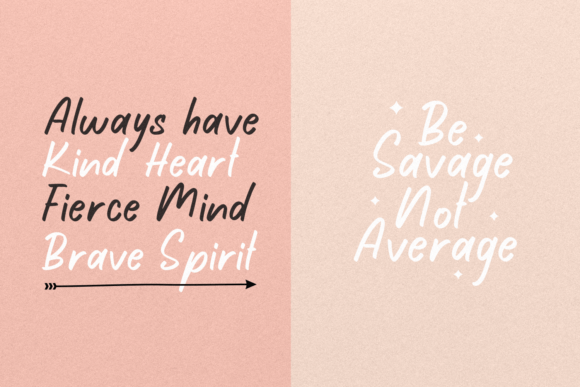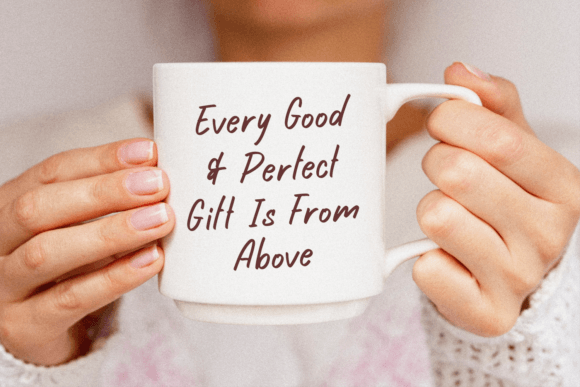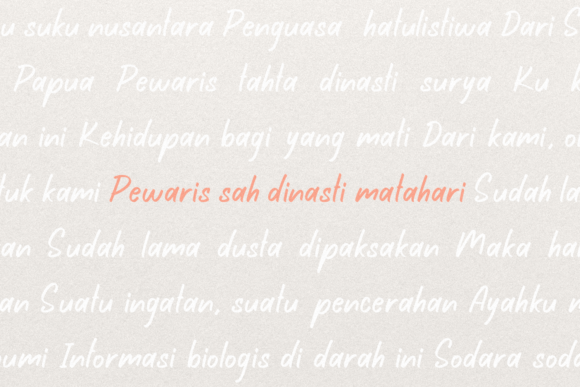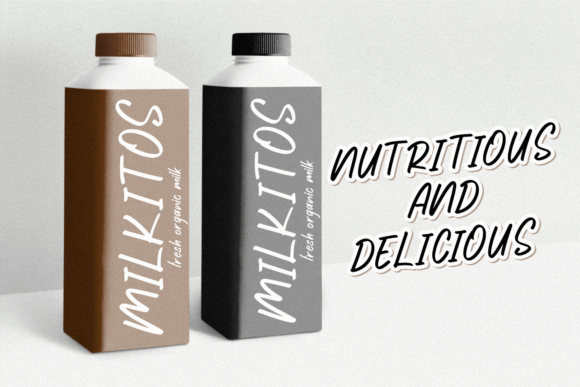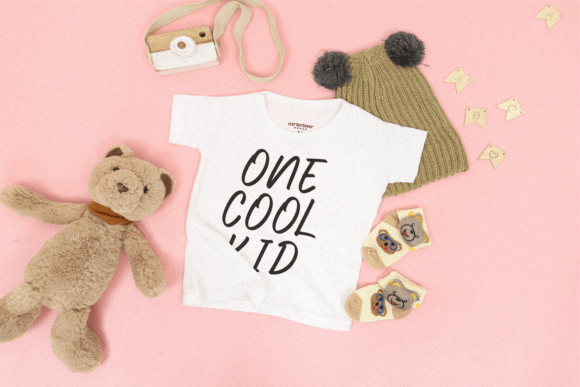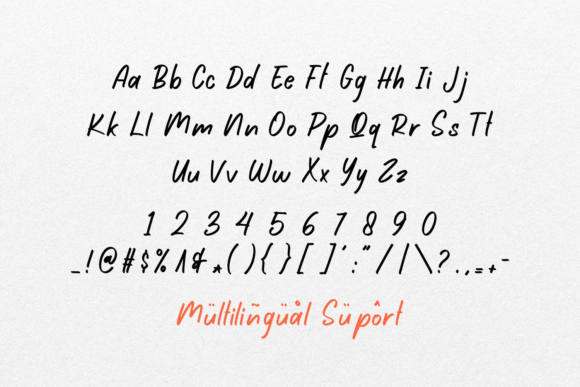
Introduction to Saltcity Font
Do you remember the moment when you first saw a handwritten note from a loved one? The feeling of warmth and thoughtfulness that came with it? That’s exactly what the Saltcity Font aims to evoke in your creative projects. This elegant and charming script font is perfect for adding a personal touch to your designs.
Whether you’re a professional designer or a hobbyist, the Saltcity Font is a valuable resource to have in your toolkit. Its versatility makes it suitable for a wide range of applications, from wedding invitations to business cards, and its free download feature makes it accessible to everyone. With its transparent background and high-quality design, you can rest assured that your creative project will stand out from the crowd.
Key Features of Saltcity Font
- Includes a range of font sizes and styles, from bold to light, to accommodate different design needs.
Honest Review: Saltcity Font
I recently stumbled upon the Saltcity Font and was excited to dive in and see what it had to offer. As a designer, I’m always on the lookout for high-quality design resources to enhance my creative projects.
- ✨ The font’s modern aesthetic makes it perfect for contemporary design projects.
- ⚠️ The font may not be suitable for traditional or formal design projects, as its modern feel may not be the best fit.
- ⚠️ Some users may find the font’s weight to be inconsistent, which could impact readability.
Overall, I was impressed with the Saltcity Font’s design and functionality. While it may have some limitations, it’s a great option for designers looking for a modern, high-quality font for their creative projects. I would definitely consider using it in future projects.
Tips for Getting the Most Out of Saltcity Font
To get the most out of the Saltcity Font, experiment with different font sizes, colors, and styles. Use the font in combination with other design elements to create a cohesive and visually appealing design.
The Saltcity Font is ideal for various creative projects, including logos, graphics, presentations, and reports. Its high-quality design and transparent background make it a versatile design resource for designers and non-designers alike.